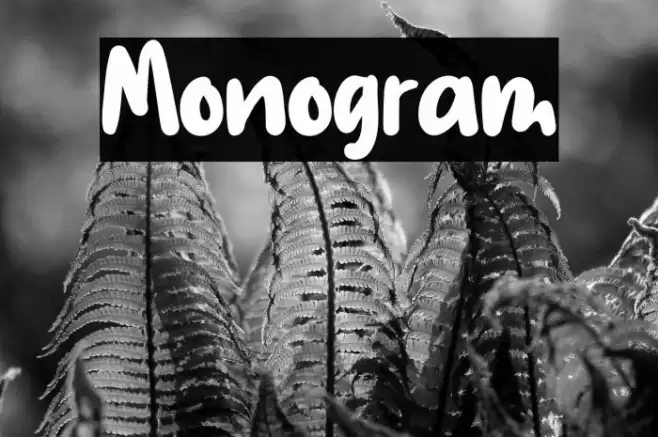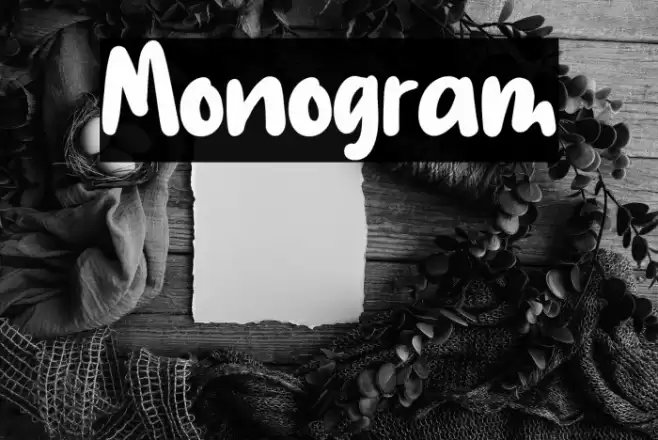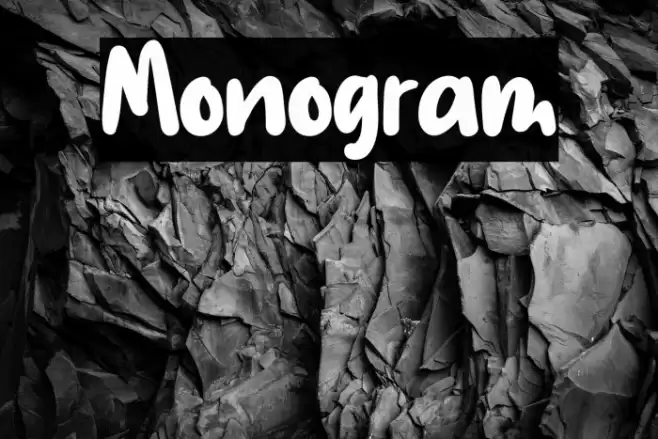
Monogram Font
Monogram Description
This playful and bold font features rounded, thick strokes that give it a friendly and approachable appearance. The characters are slightly condensed, with a consistent weight throughout, making it easy to read while maintaining a fun and informal style. The uppercase and lowercase letters are well-balanced, and the numbers and special characters are designed to match the overall aesthetic. This font is perfect for projects that require a touch of whimsy and creativity, while still being clear and legible.
A playful, bold font with rounded, thick strokes and a friendly appearance from Uncategorized fonts.
- Proposed Projects: Ideal for children's books, playful branding, casual invitations, and creative posters.
- Width: Condensed
- Overall Style: Playful